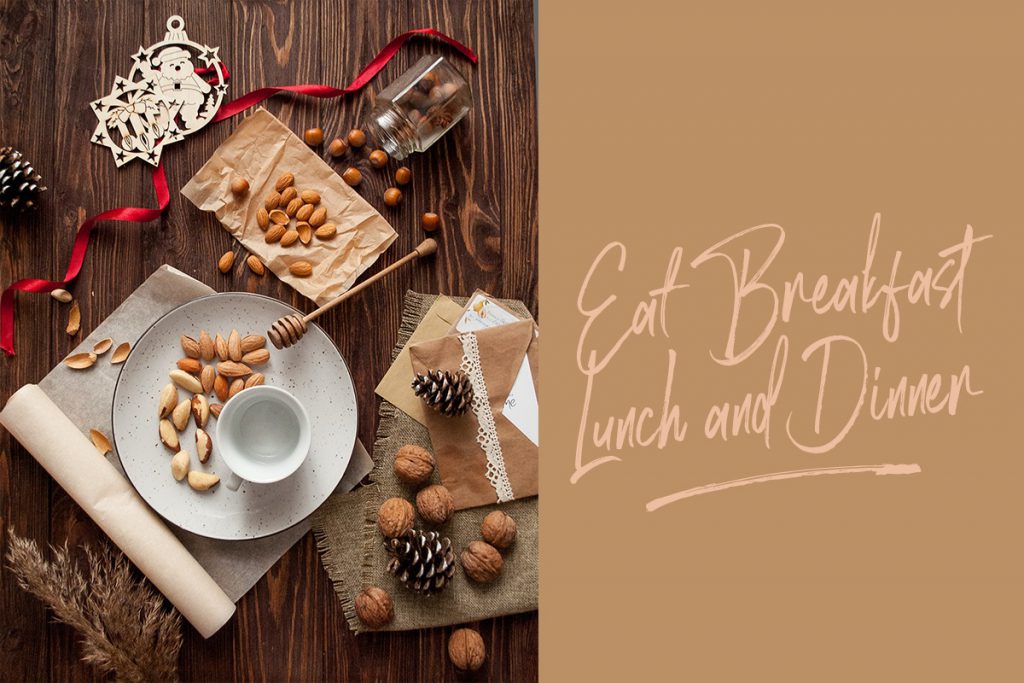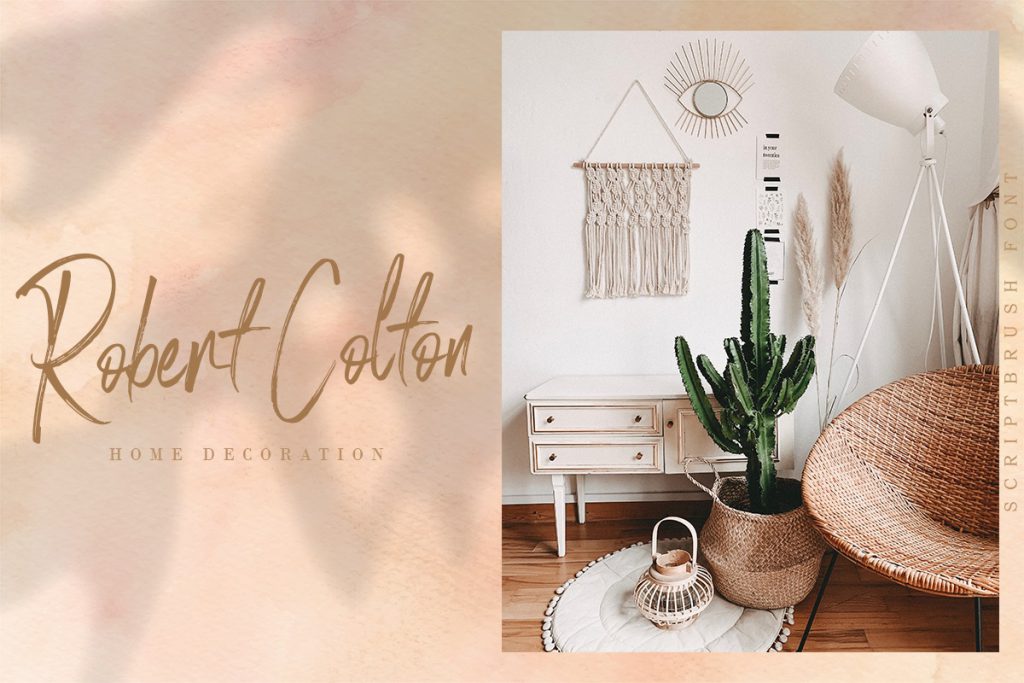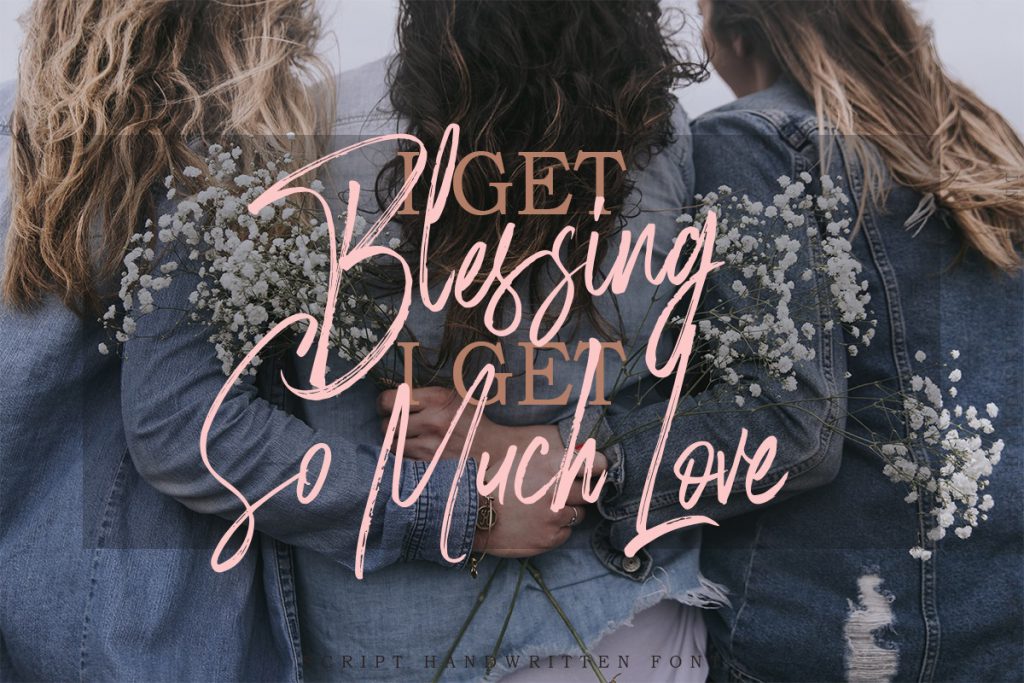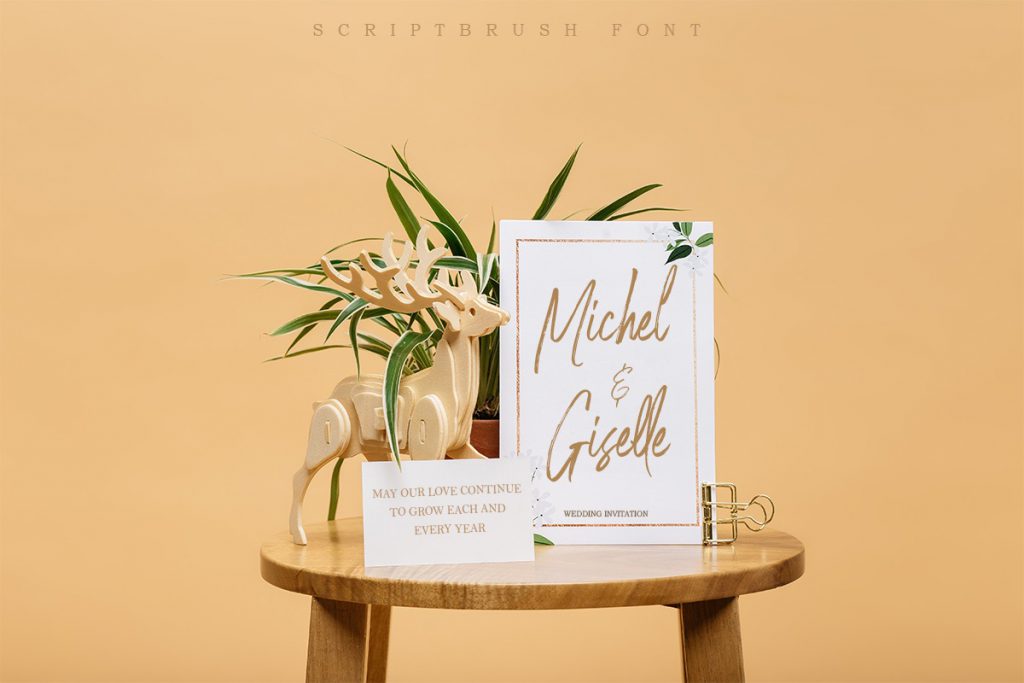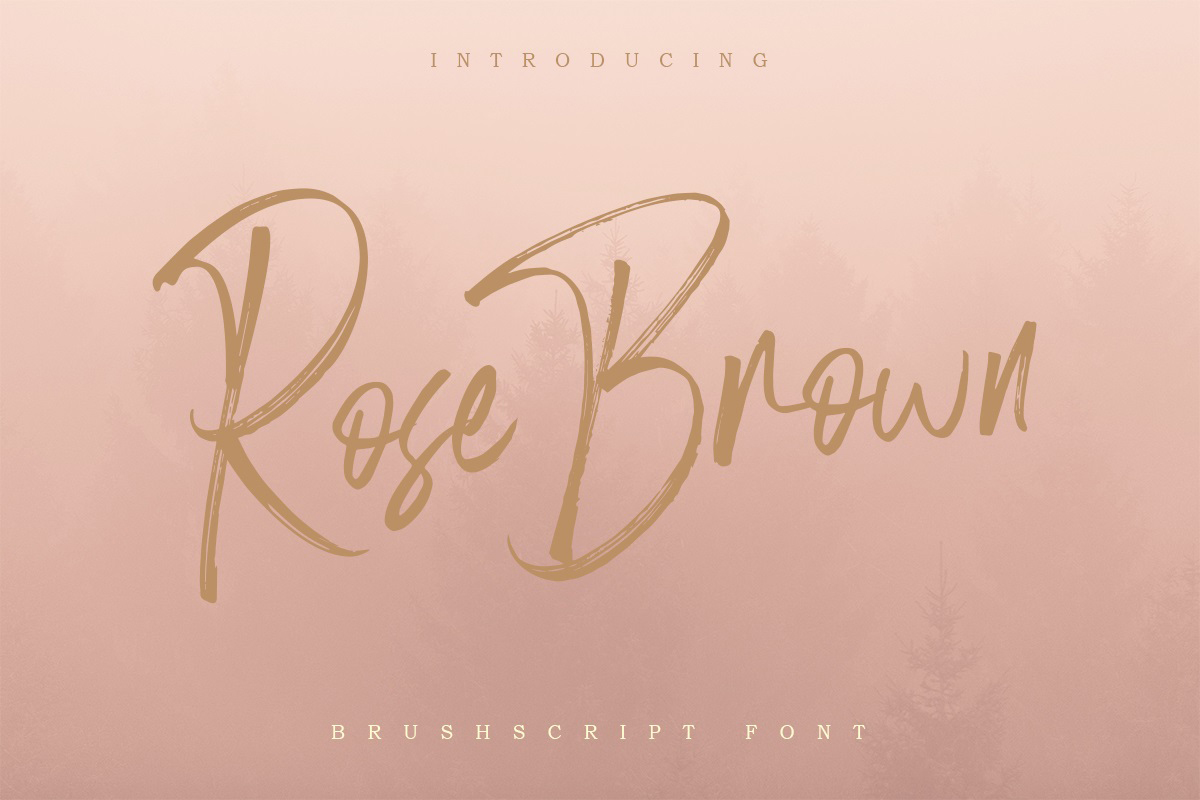
Rose Brown Brush Script
Rose Brown Brush Script is a brush font with natural rough brush strokes. This font is suitable for all kinds of your needs, good for logotype, poster, badge, book cover, T-Shirt design, packaging and many more. you can use this font to make the perfect various design.